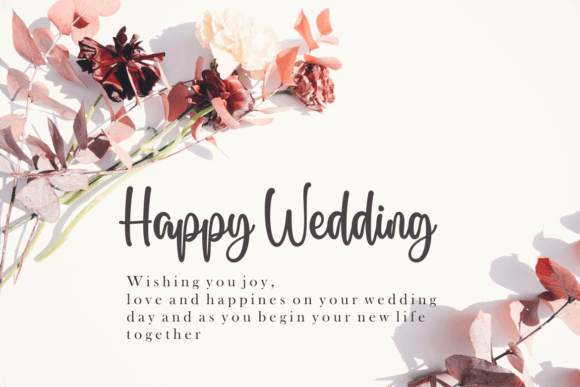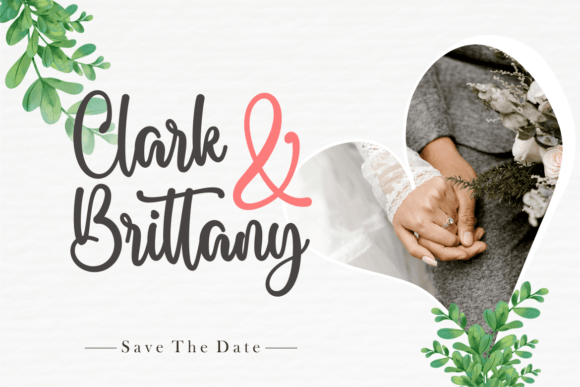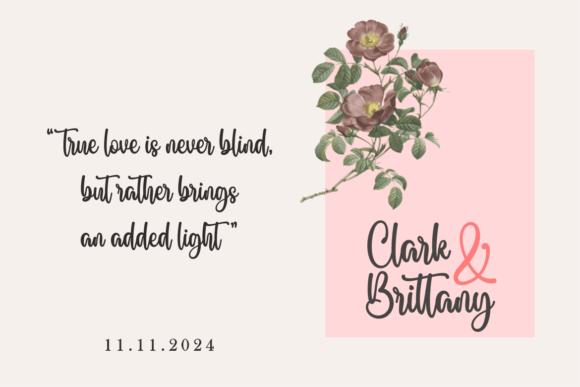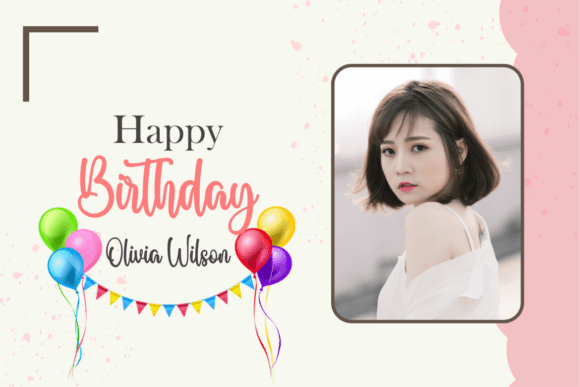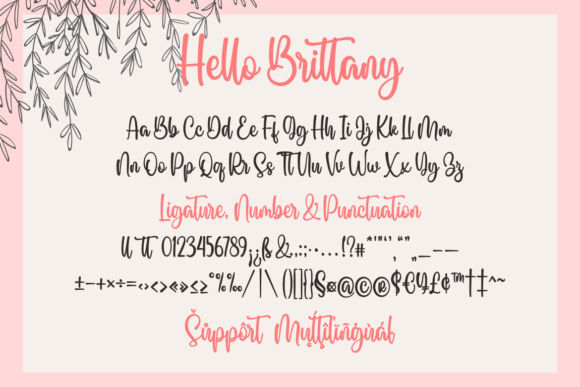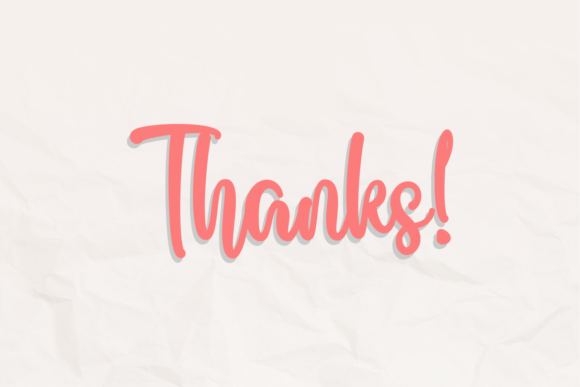
Hello Brittany Font
About Hello Brittany Font
Hello Brittany is more than just a font; it’s a stylish and modern work of art that adds a touch of sophistication to a wide spectrum of applications. Its elegant and handwritten design elevates any creative project, ensuring a romantic and charming ambiance. Whether you’re designing greeting cards, headlines, invitations, or any other type of content, Hello Brittany is the perfect choice to infuse your creations with a sense of romance and beauty.
Imagine Hello Brittany gracing a wedding invitation. Its stylish and modern characters create an immediate sense of elegance and romance, setting the perfect tone for a memorable celebration. The font’s handwritten charm transforms the invitation into a masterpiece, reflecting the couple’s love story with grace and style. Hello Brittany turns ordinary invitations into romantic keepsakes, leaving a lasting impression on every recipient and capturing the essence of the special day.
In greeting cards, Hello Brittany adds a touch of warmth and personalization. Its modern handwritten style conveys genuine emotions, making your messages feel heartfelt and intimate. Whether you’re expressing love, gratitude, or best wishes, this font enhances the sentiment, making the cards more meaningful and cherished by the recipients. Hello Brittany’s romantic touch ensures that your words resonate with sincerity, creating a deep connection with the reader.
For headlines, Hello Brittany makes a bold statement. Picture it in magazine covers, blog titles, or social media banners. Its stylish and modern design creates a visually striking impact, capturing the audience’s attention. Hello Brittany’s elegance enhances the overall aesthetic, making the headlines visually appealing and memorable. Whether you’re promoting a fashion brand, a romantic event, or a lifestyle blog, this font adds a touch of sophistication, making the content stand out and leaving a lasting impression on viewers.
Moreover, Hello Brittany seamlessly integrates into various design applications, from branding and logos to digital content and print materials. Its versatility allows it to adapt to different styles and themes, adding a romantic and modern flair to the designs. Whether you’re creating a logo for a luxury brand, designing social media graphics, or crafting a romantic book cover, Hello Brittany infuses a sense of elegance, creating visually stunning and captivating designs that leave a lasting impact on anyone who experiences them.
In summary, Hello Brittany is more than just a font; it’s a romantic masterpiece that enhances your creative projects with style and sophistication. Its modern handwritten design brings a touch of elegance to greeting cards, headlines, invitations, and various other applications. So, let Hello Brittany be your creative muse, adding a romantic and stylish vibe to your creations and capturing the hearts of anyone who encounters them.